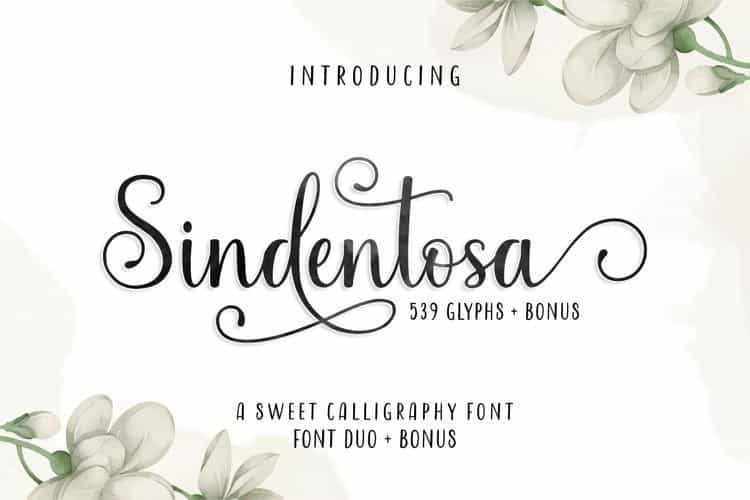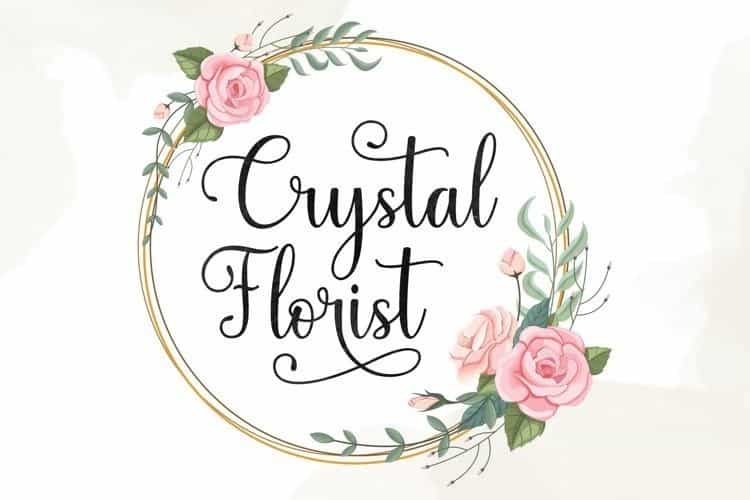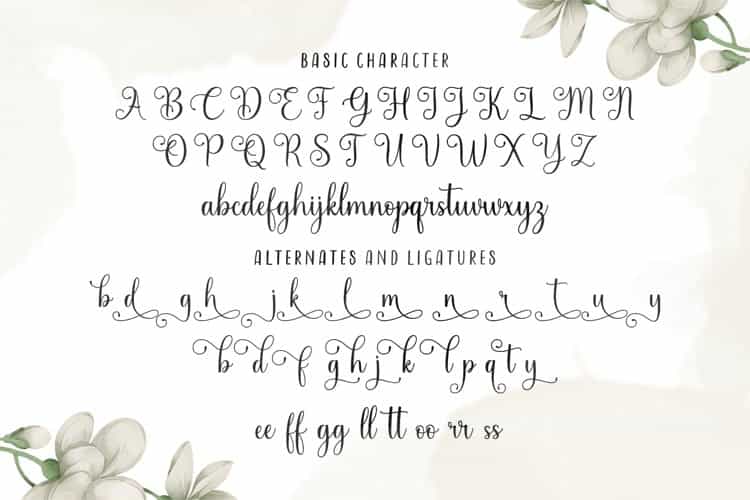
Introducing Sindentosa Font! A calligraphy font, the casual yet luxurious sort style of it has made possible to obtain a wide variety of characters. This just what we uphold is upright script, carefully and diligently made in the hope that it would produce writing that is both urbane and smooth. There are 539 glyphs available in it! So, just pick it up and use it according to your preferences of the day and you can’t help feeling trendy.